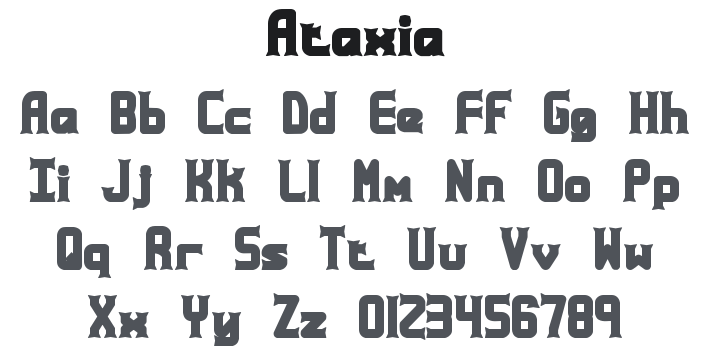
Ataxia Font Family
About Ataxia
Ataxia is a jagged, erratic hand-distressed typeface with violently irregular letterforms that feel anxious, unstable, and deliberately broken — raw punk energy with an unhinged edge. Perfect for horror titles, underground zines, punk band posters, and designs demanding chaotic, rebellious intensity.